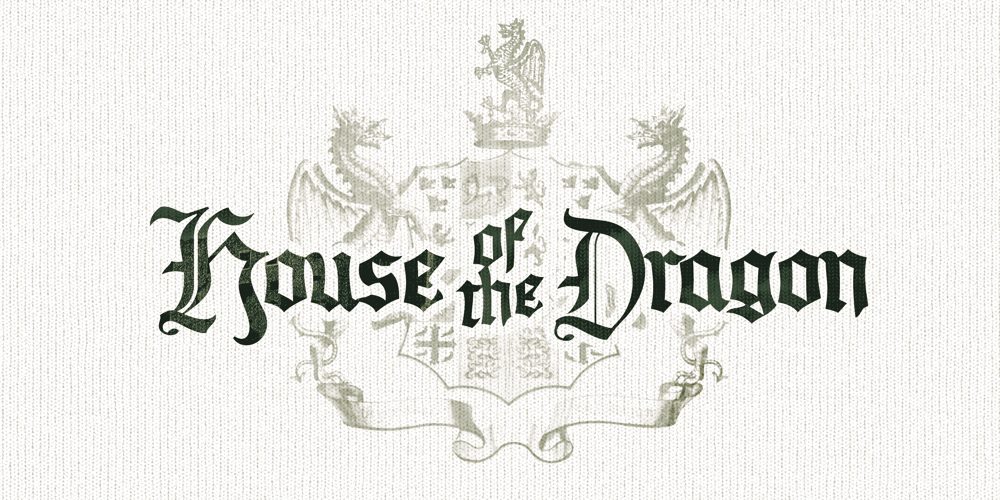
House of the Dragon Font Family was designed by Måns Grebäck and published by Mans Greback. House of the Dragon contains 5 styles and family package options. House of the Dragon is a gothic blackletter typeface, drawn and created by Mans Greback. Its large, decorative fraktur initials contrasts against the clear, minimalist medieval lowercase, as thrones amongst chairs. With more than one thousand high-quality glyphs, House of the Dragon supports all languages. It is provided in four beautiful styles: Regular, Bold, Outlined and Deco. In addition, the complementary House of the Dragon Color font, with an amazing, classical gold/red effect. This Middle Age typeface is perfect for an Olde English/German logotype, a fantasy game or a poster for a historic battle. The font is built with advanced OpenType functionality and has a guaranteed top-notch quality, containing stylistic and contextual alternates, ligatures and more features; all to give you full control and customizability. It has extensive lingual support, covering all Latin-based languages, from North Europe to South Africa, from America to South-East Asia. It contains all characters and symbols you’ll ever need, including all punctuation and numbers.